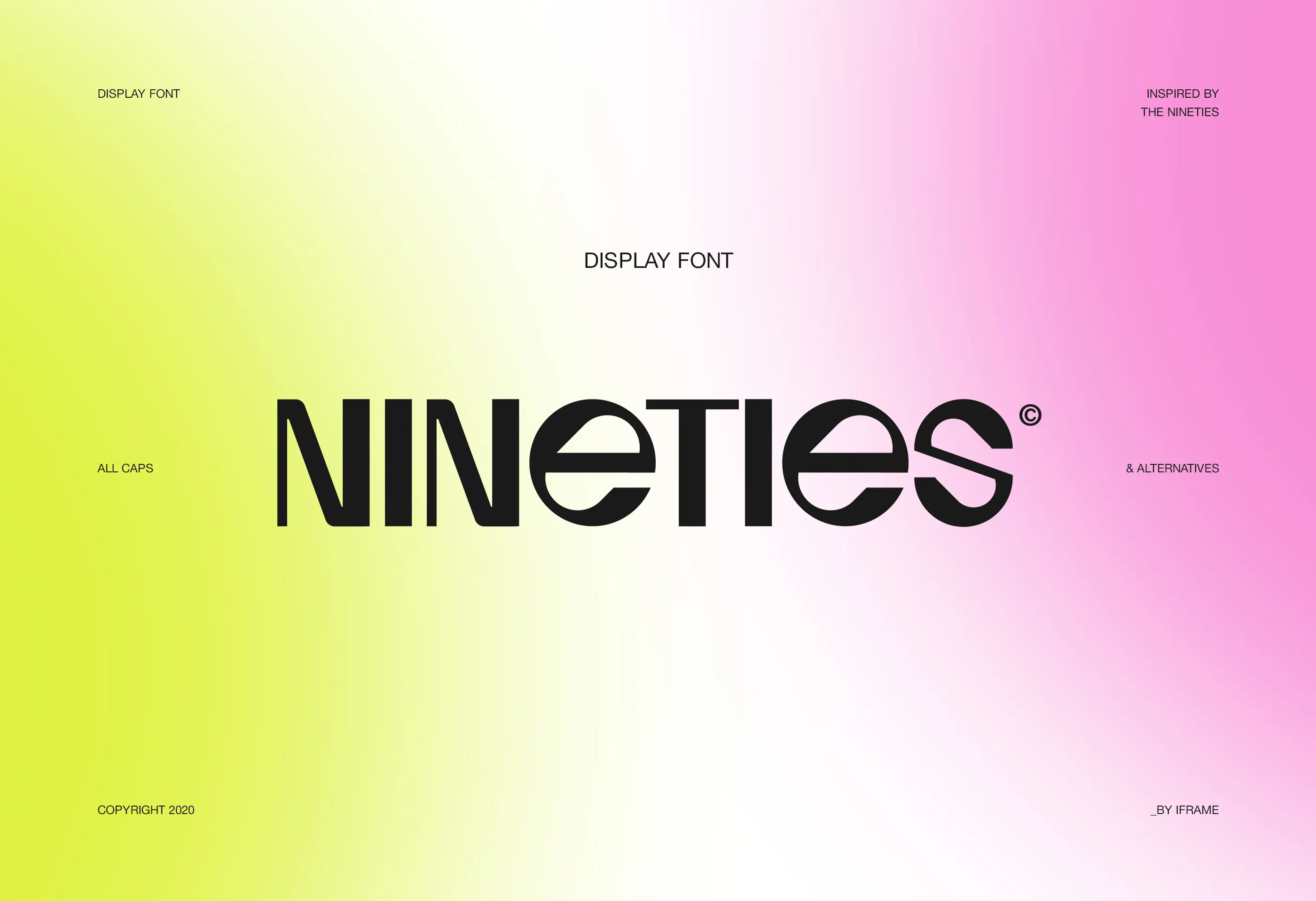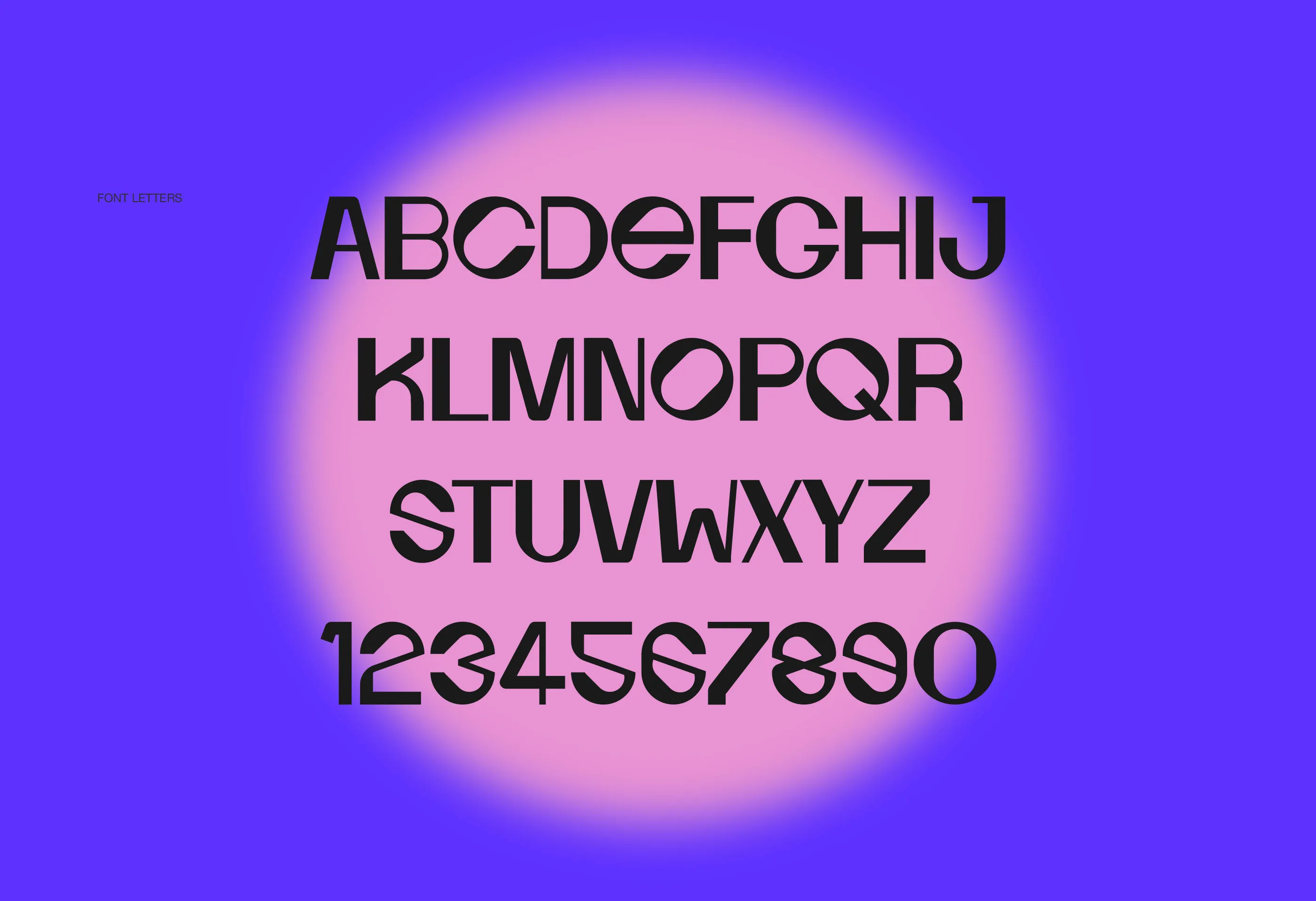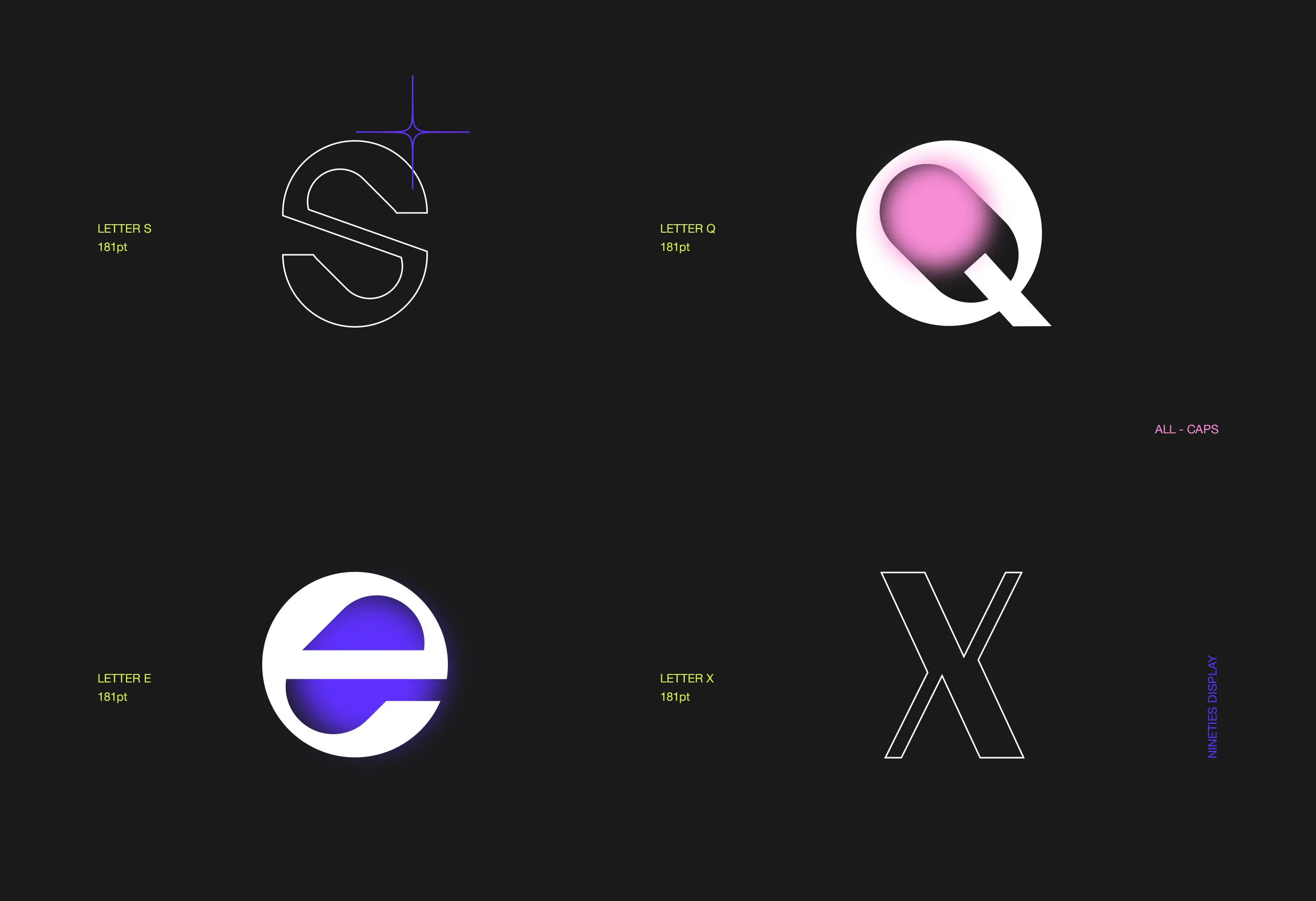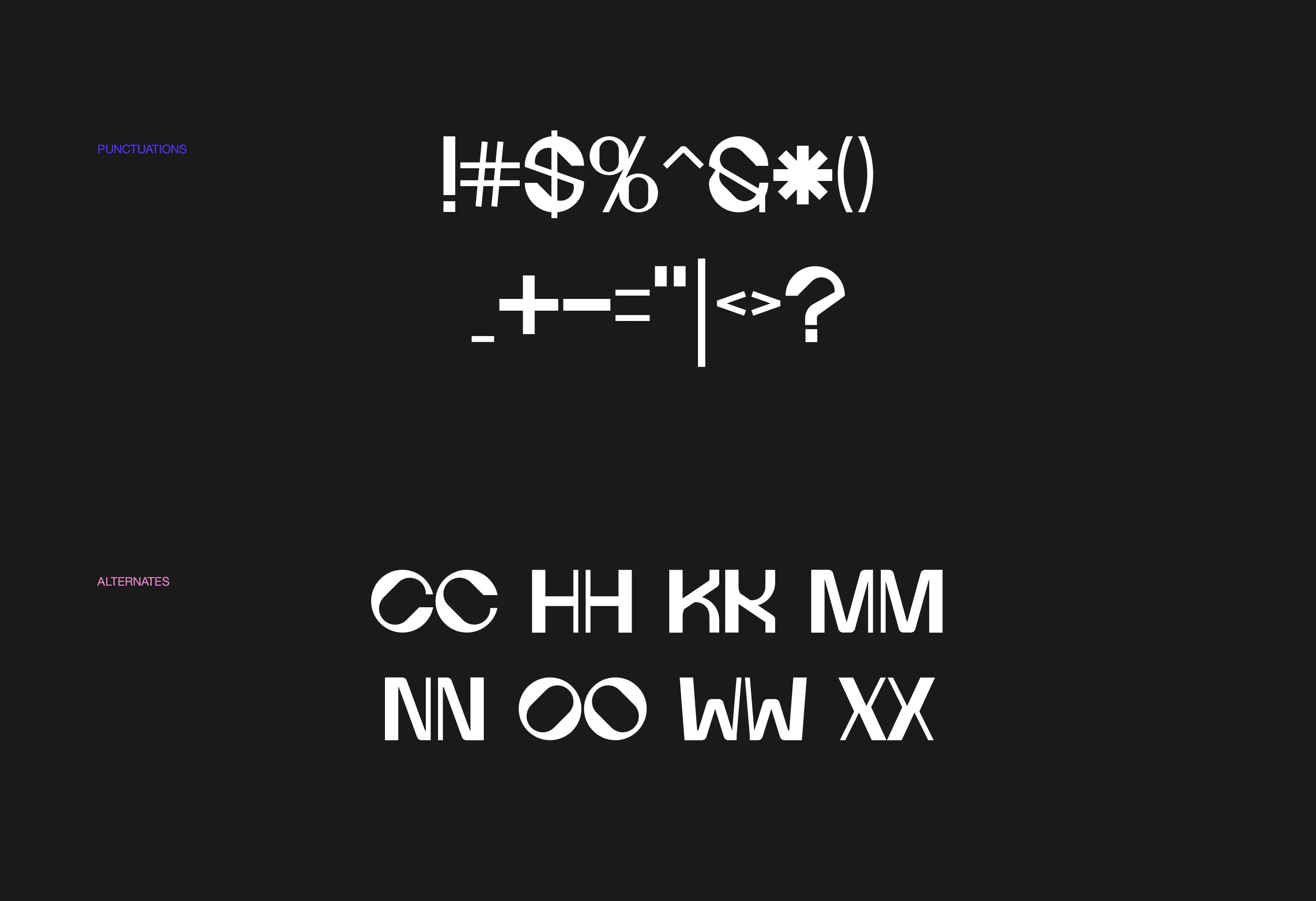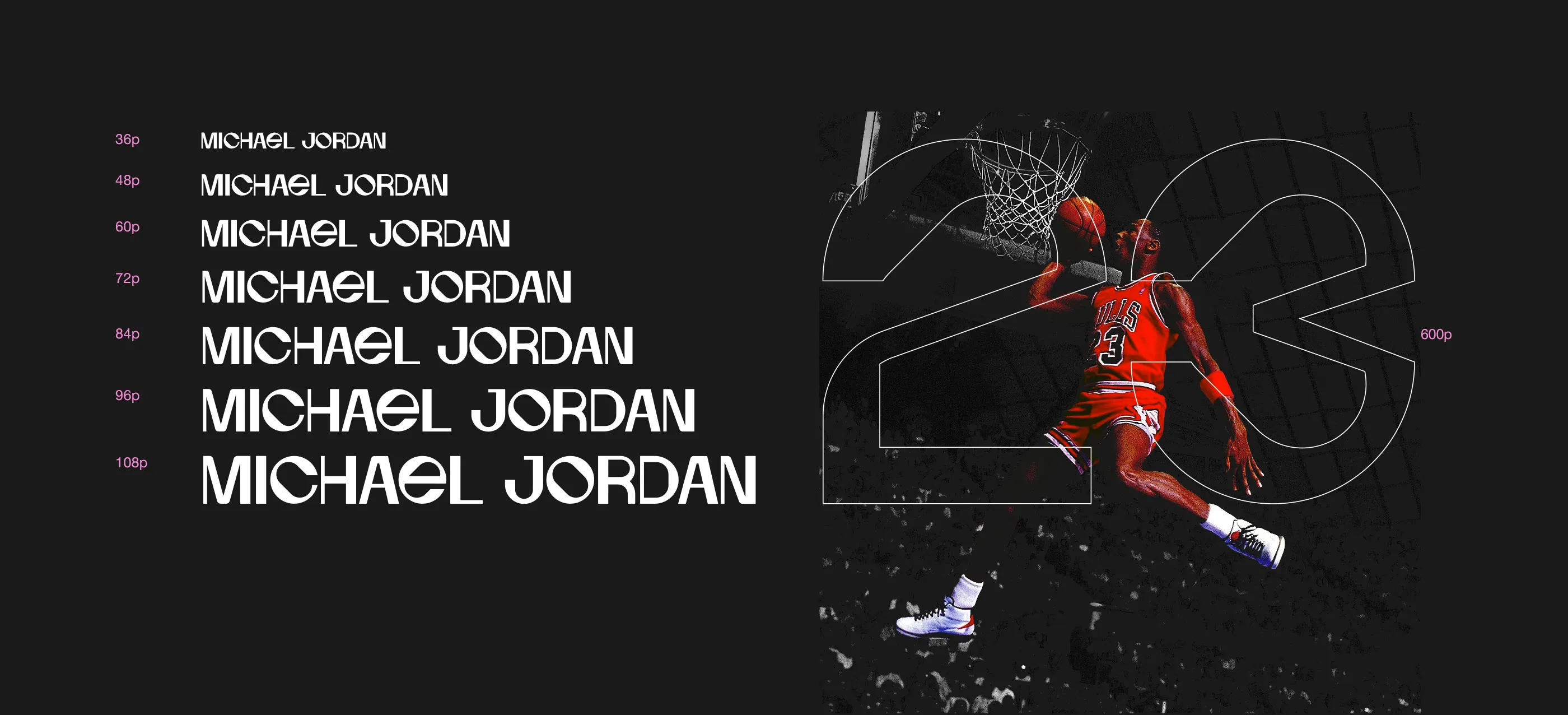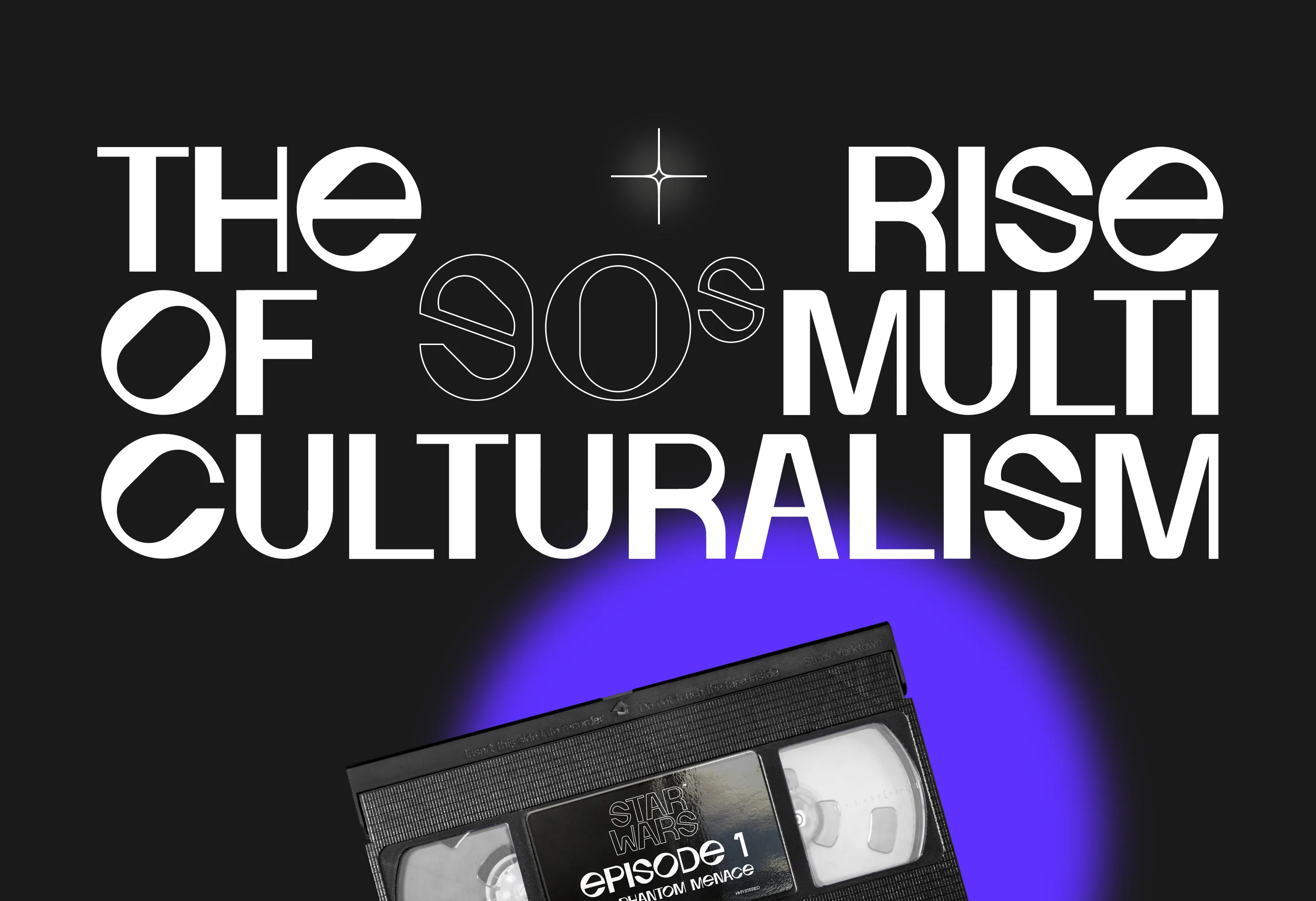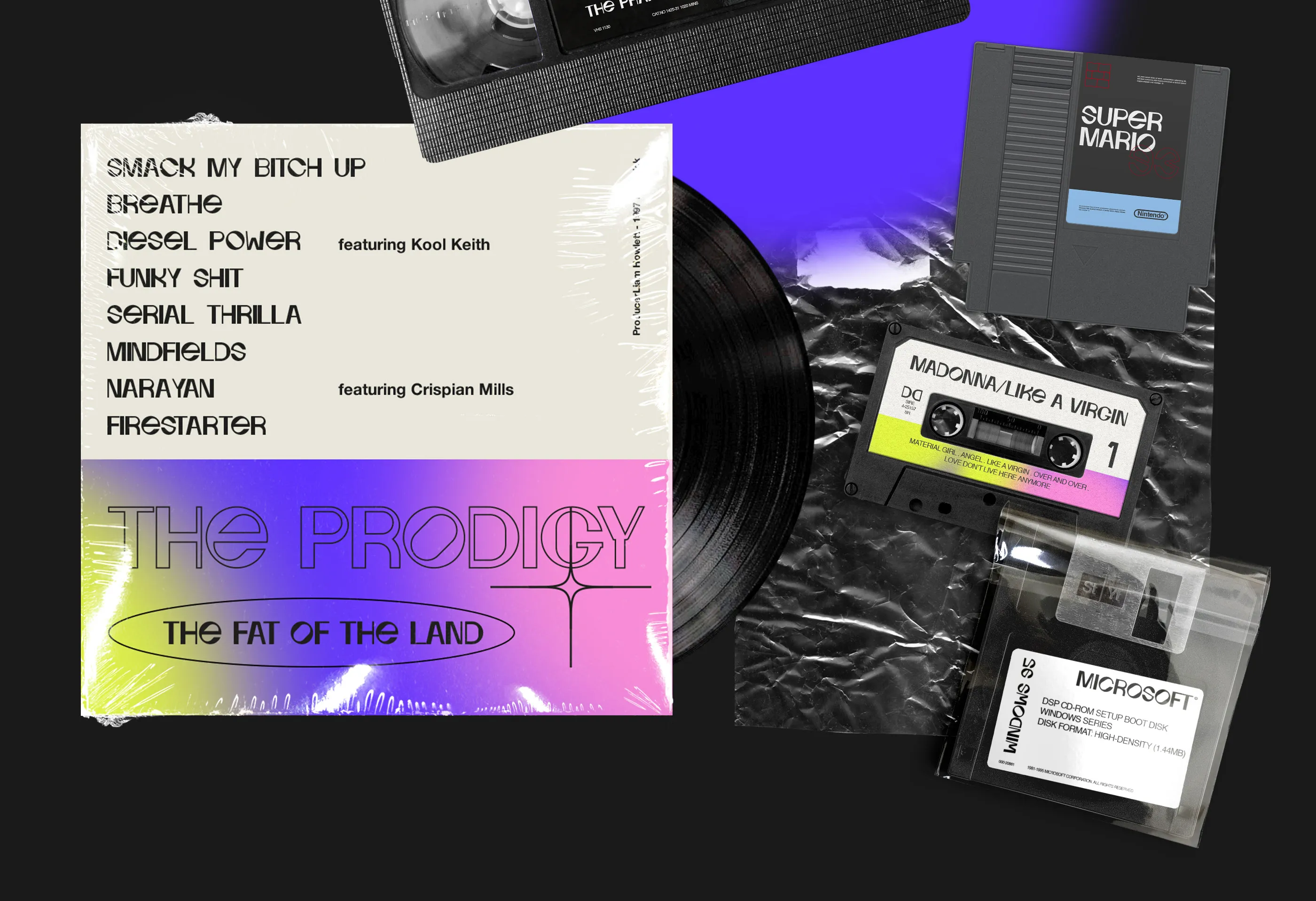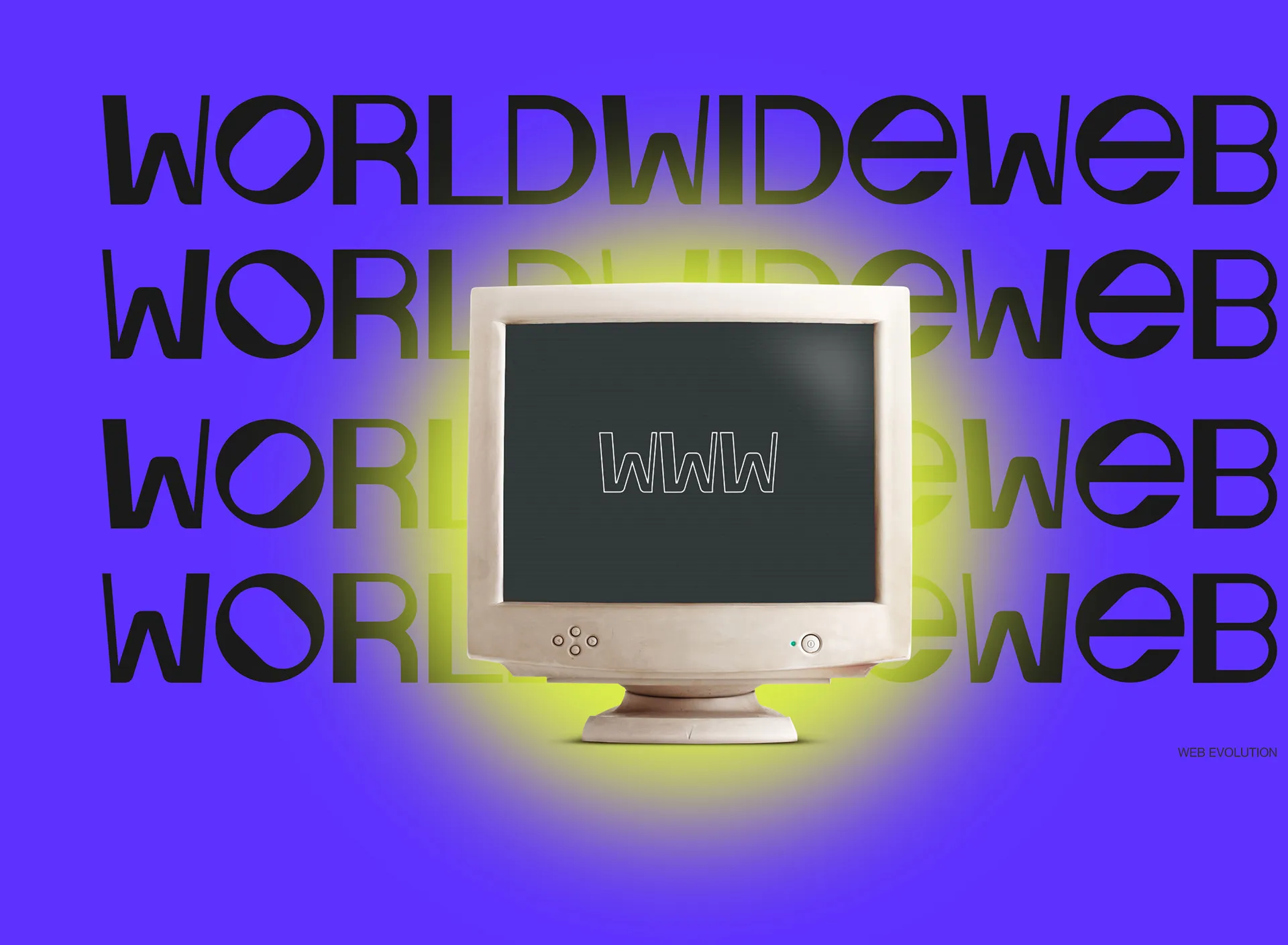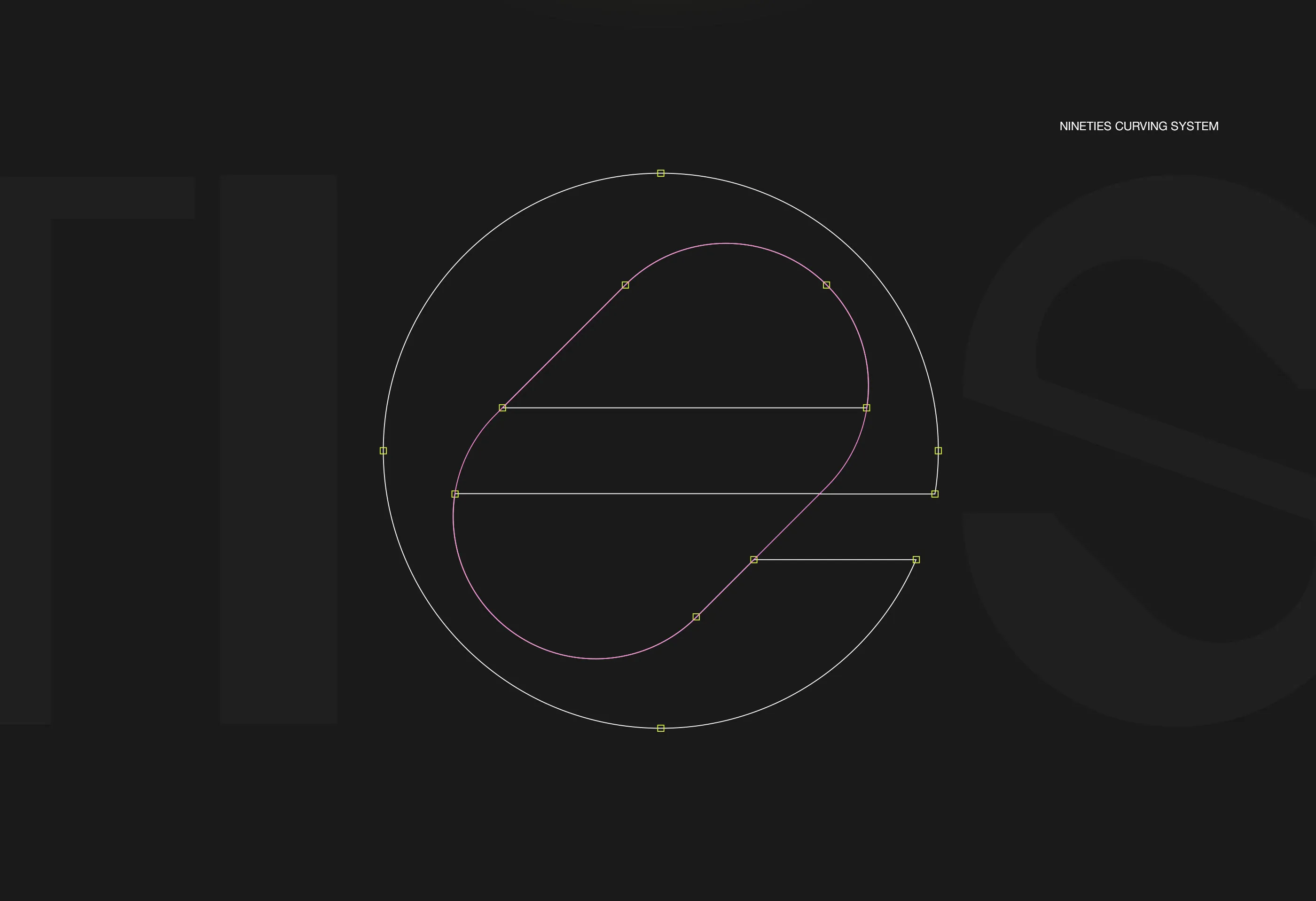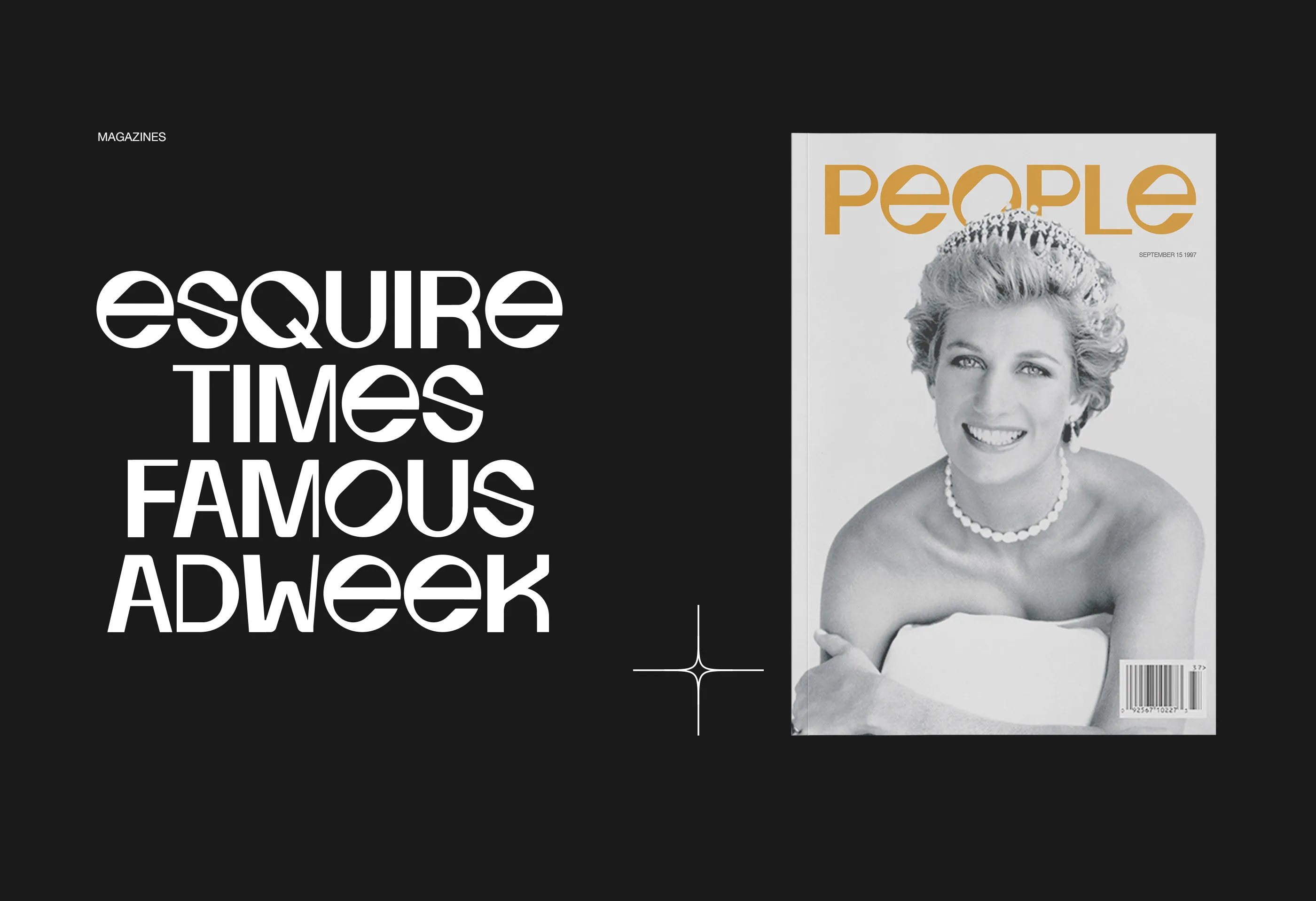
Nineties
NINETIES DISPLAY FONT
DETAILS
A display font inspired by the nineties, our favorite decade. A modern font that is both memorable and stylish. This font is suitable for use in many design forms, for example sci-fi scenes, retro gaming, magazines, postcards, logos, DIY Projects, invitation card, quotes and much more.
FEATURES
• Opentype Features
• 1 weight
• ALL CAPS
• Supported Languages: Latin